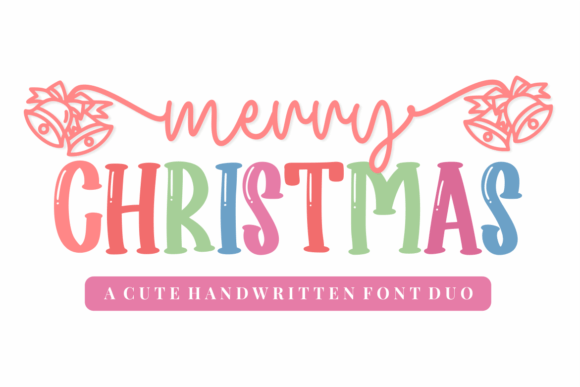
Introducing the Christmas Duo Font, a delightful creation by the talented designers at A Piece of Cake. This display font family is specifically crafted to add a dash of charm and playfulness to all your Christmas-themed projects. With a perfect blend of a display font and a monoline script, this font duo is the ultimate choice for spreading the holiday cheer!
Whether you're designing greeting cards, crafting captivating headlines, or working on any other Christmas project, the Christmas Duo Font is your key to success. It infuses every creation with a romantic touch that will captivate both your own heart and the hearts of your audience.
The Christmas Duo Font is simply a must-have for anyone looking to make their designs stand out during the festive season. Its versatility allows you to create a wide spectrum of applications, ensuring you never run out of creative possibilities. From whimsical and joyful to elegant and sophisticated, this font has it all!
Let the Christmas Duo Font be your secret weapon to mesmerize your viewers and leave a lasting impression. Its unique and eye-catching design will make your creations shine brighter than the North Star. Embrace the magic of the holiday season and let this font sprinkle your projects with an enchanting aura.